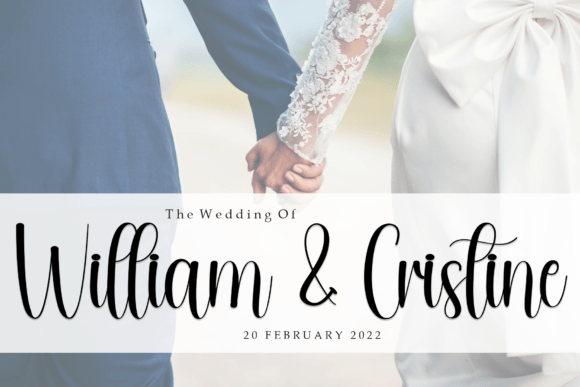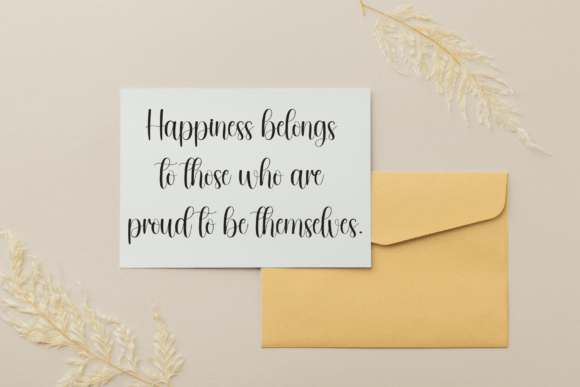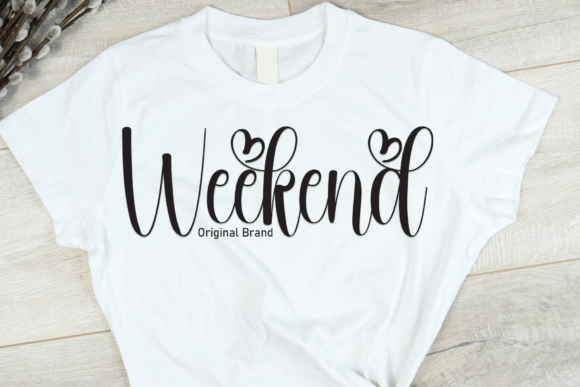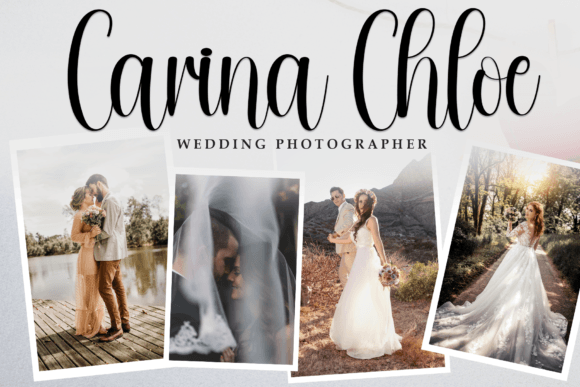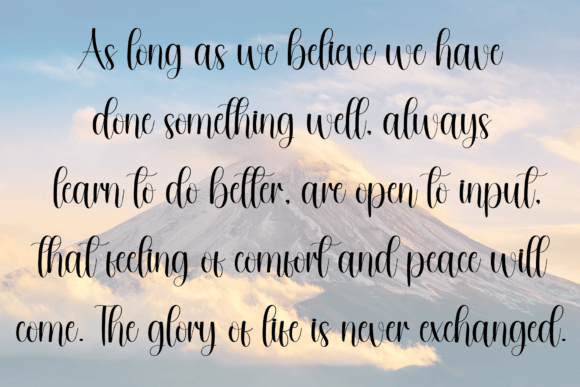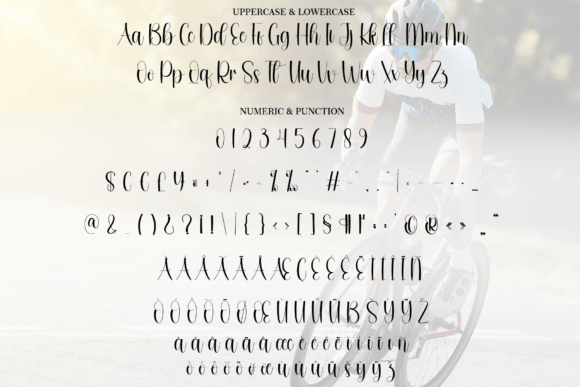
Cycling Font: A Sweet and Friendly Handwritten Delight
Cycling is a beautiful, handwritten font that exudes a sense of freshness and casual charm. Its sweet and friendly demeanor makes it an ideal choice for a variety of design projects, including wedding invitations, cards, and other creative endeavors that require a lovely touch. In this article, we’ll explore the Cycling font in-depth, discussing its features, uses, and benefits for designers and crafters.
What is Cycling Font?
Cycling font is a type of handwritten font that is characterized by its flowing, cursive strokes and whimsical feel. It’s a digital font that can be used on various platforms, including graphic design software, websites, and social media. The font is designed to mimic the look of handwritten text, with each letter and word carefully crafted to create a sense of warmth and personality.
Key Features of Cycling Font
- Handwritten style: Cycling font boasts a genuine handwritten look, complete with subtle imperfections and variations in letter size and spacing.
- Fresh and casual: The font’s lighthearted and carefree vibe makes it perfect for designs that require a playful touch.
- Highly legible: Despite its handwritten nature, Cycling font is remarkably easy to read, making it suitable for both short and long texts.
- Versatile: This font can be used in a wide range of design projects, from wedding invitations and greeting cards to blog posts and social media graphics.
Uses of Cycling Font
Cycling font is an incredibly versatile typeface that can be used in various design projects. Here are some ideas to get you started:
- Wedding invitations: Add a touch of romance and whimsy to your wedding invites with Cycling font.
- Greeting cards: Create beautiful, heartfelt cards for special occasions like birthdays, anniversaries, and holidays.
- Blogging and social media: Use Cycling font to add a personal touch to your blog posts, social media graphics, and other online content.
- Branding and packaging: Apply Cycling font to your brand’s packaging, labels, and marketing materials for a friendly, approachable look.
Cycling font offers numerous benefits for designers and crafters, including:
- Time-saving: With Cycling font, you can create beautiful, professional-looking designs in a fraction of the time.
- Customizable: Experiment with different colors, sizes, and styles to make Cycling font your own.
- Unique and creative: Stand out from the crowd with Cycling font’s distinctive, handmade aesthetic.
Tips for Using Cycling Font Effectively
To get the most out of Cycling font, follow these expert tips:
- Pair with complementary fonts: Combine Cycling font with other fonts to create visual interest and hierarchy.
- Experiment with colors: Try out different colors and textures to add depth and personality to your designs.
- Pay attention to spacing: Adjust the spacing between letters and words to achieve a balanced, harmonious look.
- Keep it simple: Don’t over-accessorize – let Cycling font’s natural charm shine through.
Cycling font is a sweet and friendly handwritten font that’s perfect for designers and crafters looking to add a touch of whimsy and elegance to their projects. With its fresh, casual vibe and versatile nature, Cycling font is sure to become a favorite in your design toolkit. Whether you’re creating wedding invitations, greeting cards, or social media graphics, Cycling font is the perfect choice for anyone seeking a beautiful, handmade look.